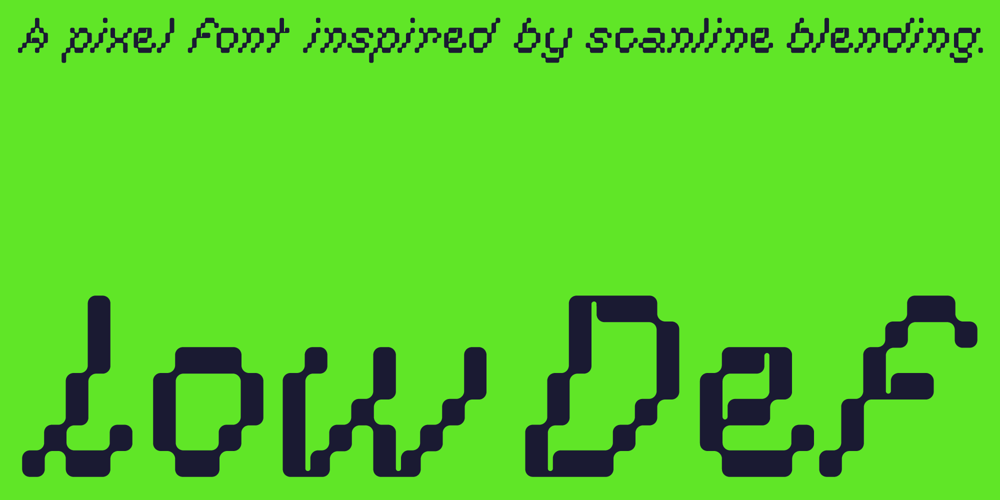
Low Def
Low Def font
Low Def Font Family was designed by Daniel Brokstad and published by Daniel Brokstad. Low Def contains 5 styles and family package options. Low Def, short for Low Definition, is inspired by fonts displayed on old CRT televisions / monitors, sometimes with quirky characteristics. From video game consoles, home computers to the dim noisy arcades. With it’s lower resolution analogue signal shown through scanlines, it created a smoothened look that blended together the pixels on CRT displays. The family consist of 5 different widths, from Extra Narrow to Extra Wide.Roman, Cyrillic, Katakana & Hiragana are supported.